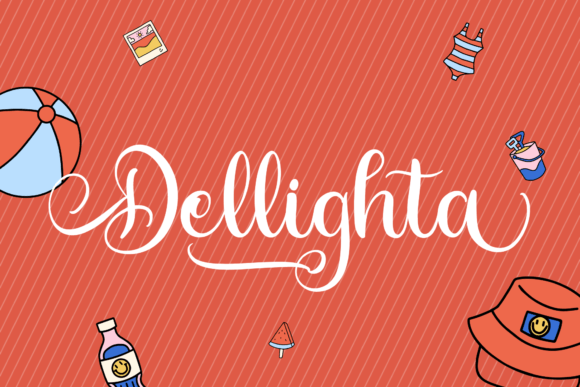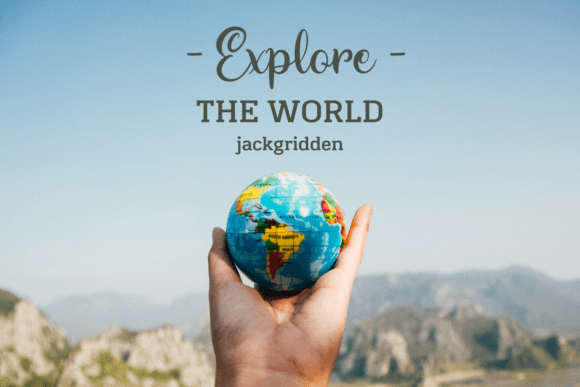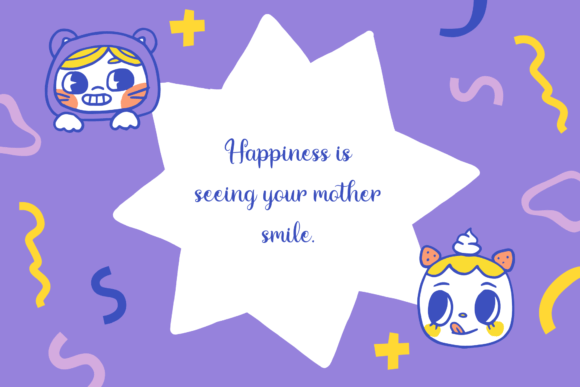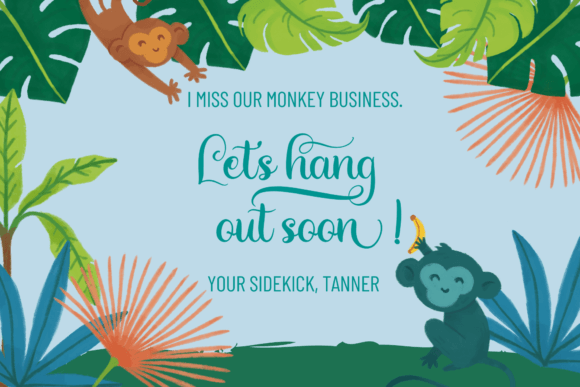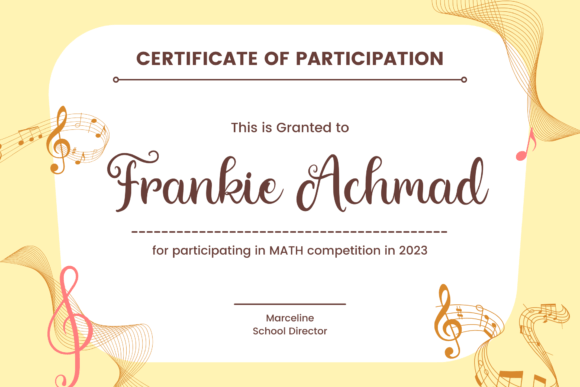
Introducing Dellighta Font: Adding a Touch of Humor and Whimsy to Your Designs
Are you tired of using the same old fonts for your creative projects? Look no further than Dellighta, the delightful script font that’s sure to bring a smile to your face and a touch of humor to your designs. With its playful typography, versatile usage, and OpenType features, Dellighta is the perfect choice for designers and crafters looking to add a dash of personality to their work.
Playful Typography
Dellighta’s whimsical letterforms are carefully crafted to dance across the page, infusing your text with a lighthearted and friendly vibe. The font’s playful typography is sure to capture the attention of your audience and leave a lasting impression. Whether you’re working on a greeting card, invitation, or social media graphic, Dellighta’s fun and quirky style is sure to shine through.
Versatile Usage
One of the best things about Dellighta is its versatility. This delightful font can be used for a wide range of creative endeavors, from:
- Funny greeting cards and invitations
- Quirky branding and advertising materials
- Children’s book covers and illustrations
Wherever you use it, Dellighta is sure to add a splash of humor and personality to your project.
OpenType Features
Dellighta also features a range of OpenType features, including ligatures and stylistic alternates. These features allow you to experiment and customize your text to achieve that perfect, quirky look. With Dellighta, you can:
- Swap out letters for stylistic alternates
- Add ligatures for a more playful feel
- Experiment with different character combinations
The possibilities are endless with Dellighta’s OpenType features.
Comic Appeal
Dellighta is designed to evoke smiles and create a memorable visual impact. With its funny and expressive characters, this font is sure to bring a touch of humor and whimsy to your designs. Whether you’re creating a cartoon illustration or a quirky brand identity, Dellighta’s comic appeal is sure to shine through.
Perfect For
Dellighta is perfect for designers and crafters who want to add a touch of humor and personality to their work. Here are some specific use cases where Dellighta really shines:
- Funny Greeting Cards: Add a dash of humor to your greeting cards with Dellighta’s playful typography.
- Cartoon Illustrations: Bring your cartoon illustrations to life with Dellighta’s whimsical letterforms.
- Children’s Book Covers: Create eye-catching children’s book covers with Dellighta’s fun and quirky style.
- Quirky Branding: Add a touch of personality to your brand identity with Dellighta’s unique typography.
- Social Media Posts: Make your social media posts stand out with Dellighta’s playful and attention-grabbing style.
| Author | jackgridden |